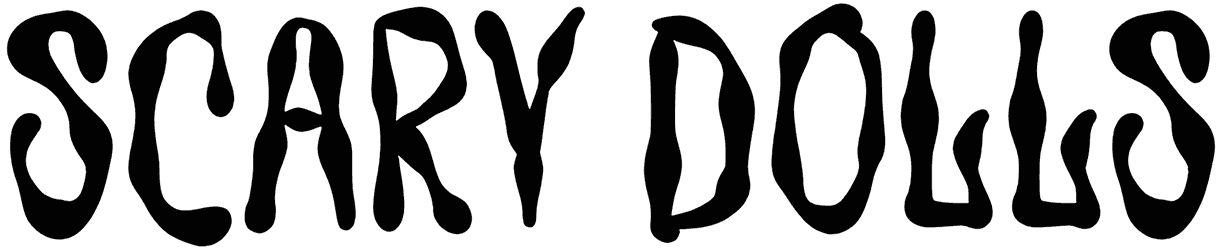
Scary Dolls Font
With the Scary Dolls ghost font, you can add personality and a spooky feel to your digital projects.
This holiday font, which doesn’t have any lowercase letters, is great for any kid-friendly Halloween theme because it shows both darkness and excitement. If you want to use this childish font, you can get it from RB’s font section and give your boring letters a mysterious, ominous vibe in under two minutes.